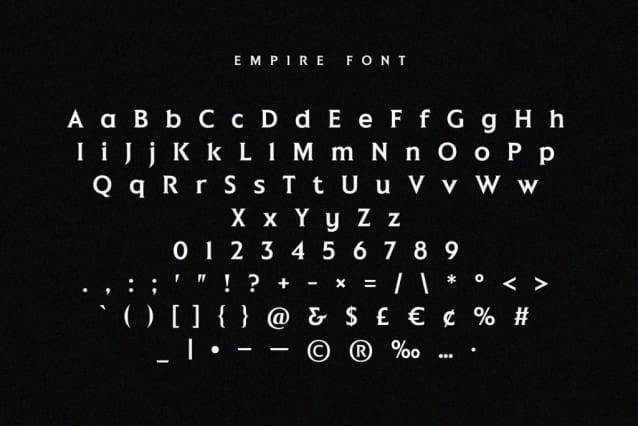
Empire Font
Empire Font is modern and unique and the writing style is very natural. You can create many beautiful typographic designs in an instant like branding, web design and editorial, prints, crafts, quotes. It’s great for logotypes, wedding invitations, romantic cards, labels, packaging, the spelling of names, and others.